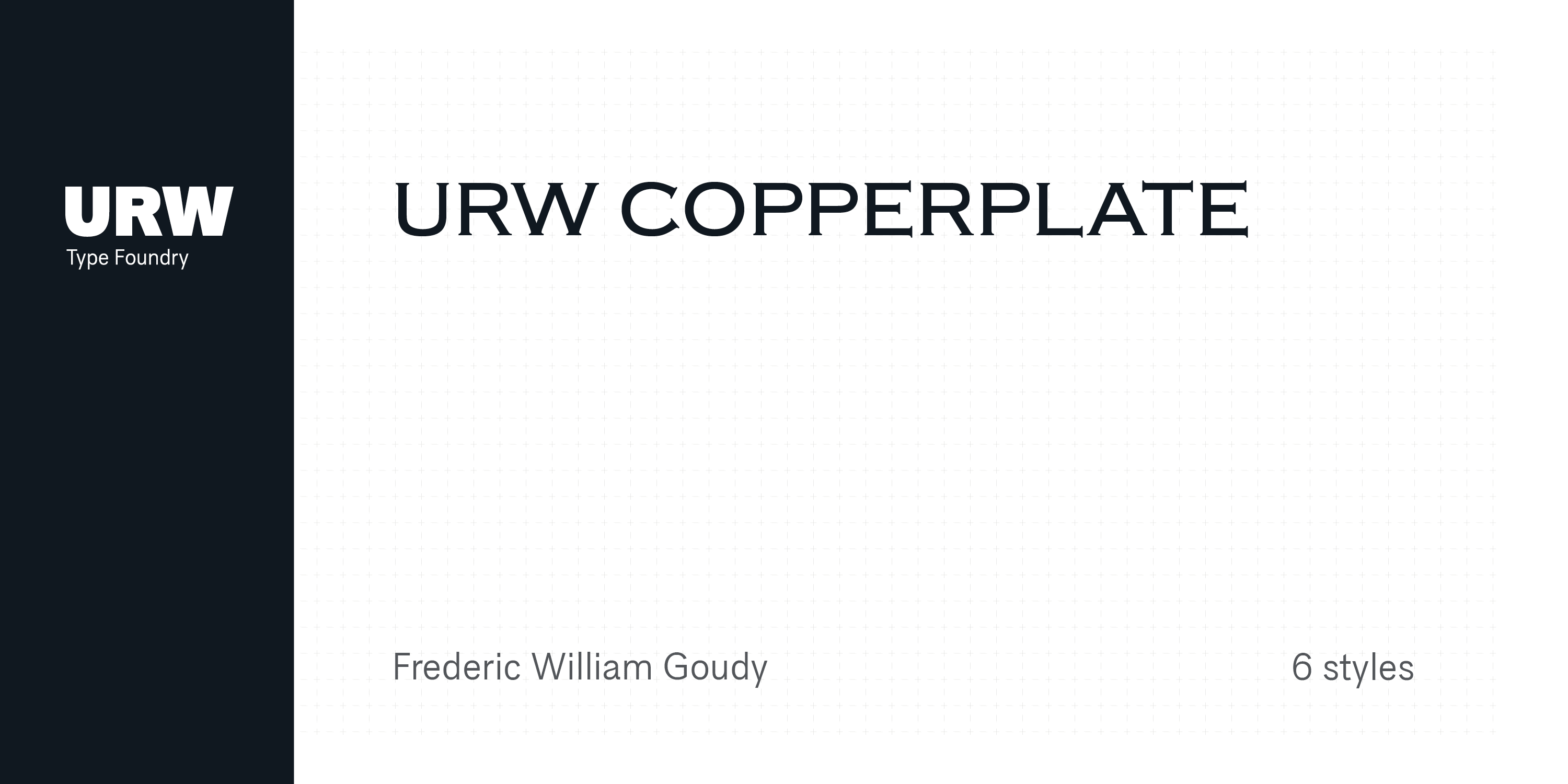
Copperplate Font is a distinguished all-caps typeface that embodies classical engraving traditions with modern digital precision. This font is available for commercial use and must be purchased for business applications. You can download it for free for testing purposes only.
Copperplate Font excels in numerous design applications including business cards, corporate logos, formal invitations, certificates, diplomas, legal documents, professional stationery, architectural signage, memorial plaques, and prestigious awards. Its authoritative character makes it ideal for establishments requiring formal elegance and institutional credibility.
What makes Copperplate Font so exciting is its timeless authority and engraved elegance, featuring precise letterforms, consistent stroke weights, and refined proportions that command respect and convey institutional quality. The font's classical foundation rooted in traditional engraving techniques creates immediate recognition of prestige and professional excellence.
The Copperplate Font family includes multiple weight variations: Light, Regular, Bold, and condensed versions, each maintaining the characteristic engraved appearance while offering different levels of visual impact. Each family member preserves the font's authoritative character while providing designers with flexibility for various formal applications.
This exceptional typeface represents the perfect preservation of traditional engraving craftsmanship in digital format, making Copperplate Font Free Download an invaluable resource for professional designers. The font's engraved heritage works exceptionally well in formal contexts where tradition, authority, and institutional credibility are paramount considerations.
Copperplate Font supports comprehensive character sets including uppercase letters, numerals, punctuation, and special symbols, ensuring professional applications across formal documentation. Its consistent character spacing and refined details maintain readability while preserving the distinctive engraved aesthetic that defines its character.
Professional designers appreciate Copperplate Font for its ability to convey authority, tradition, and institutional quality in formal communications. The font's engraved character makes it particularly effective for legal firms, financial institutions, government agencies, and educational establishments where formal credibility is essential.
The font's classical authority and engraved sophistication make it particularly suitable for law firms, banks, universities, government offices, and traditional institutions. Its timeless formal appeal ensures designs maintain dignity and professional respect across changing design trends.